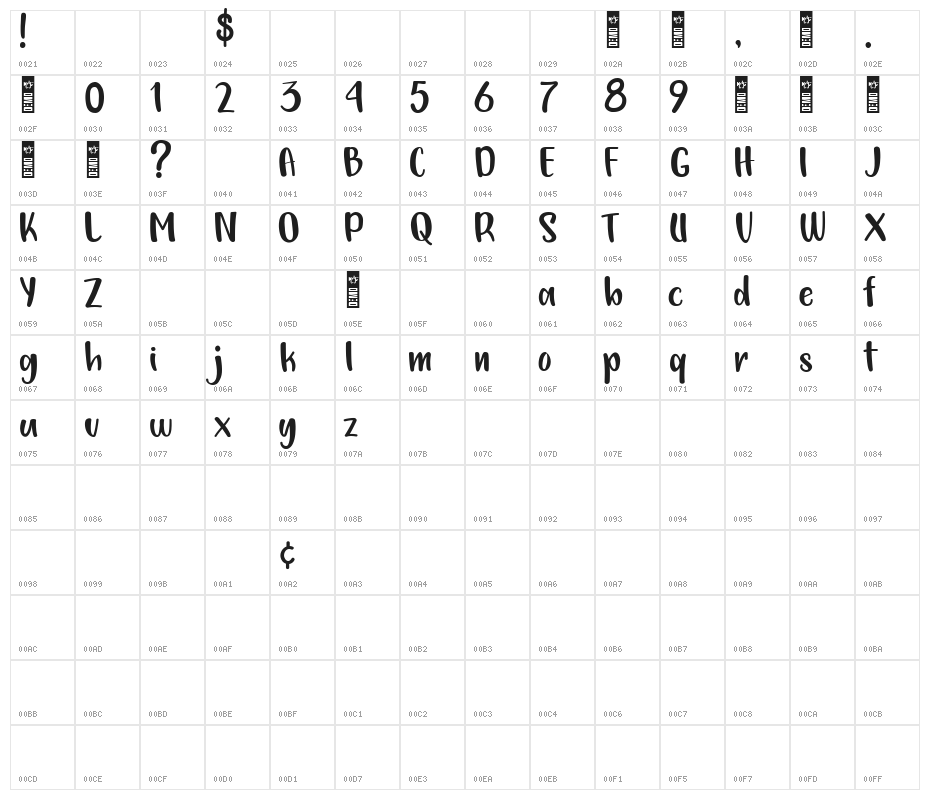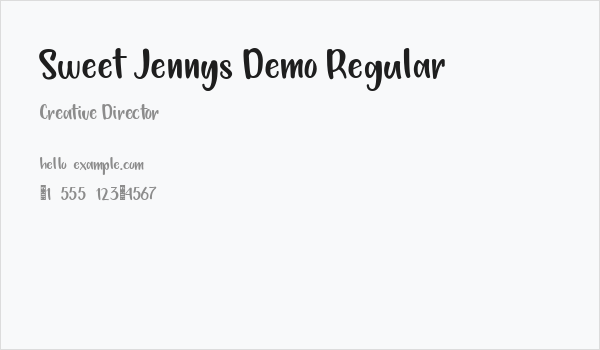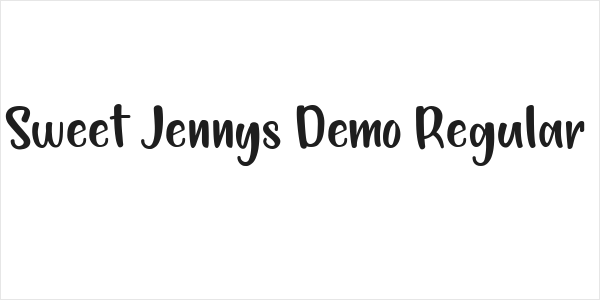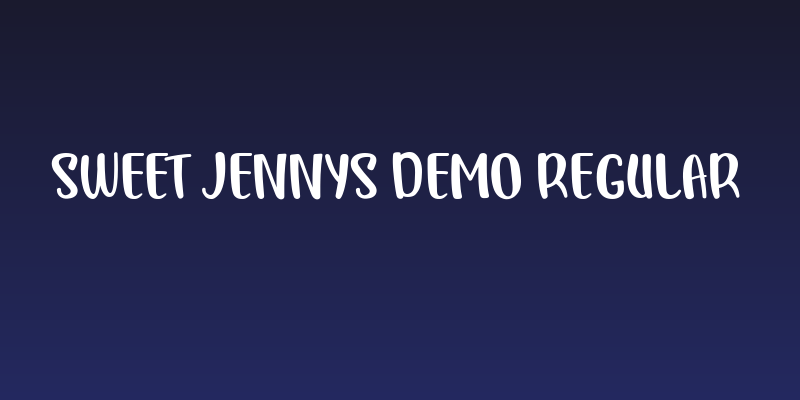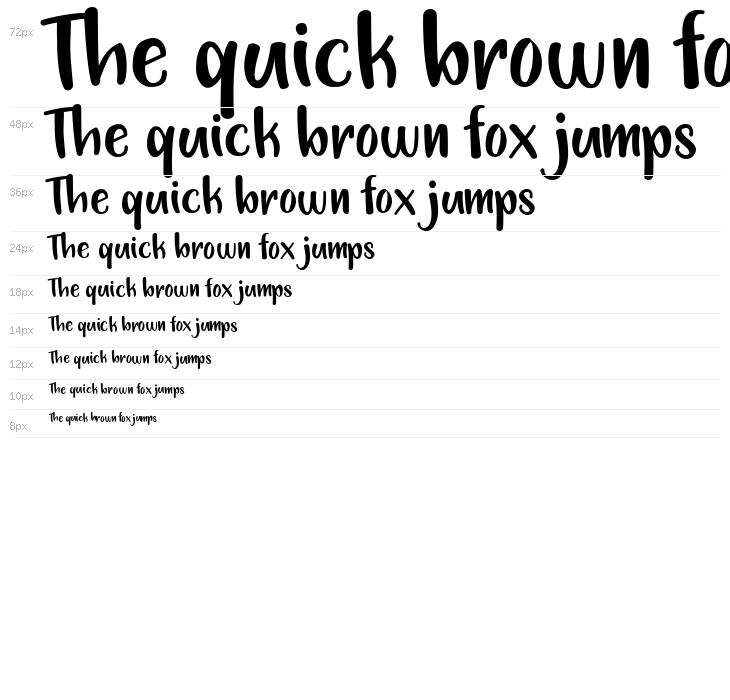
Sweet Jennys Demo Regular Font
Sweet Jennys Demo Regular Description
This font features a playful and casual handwritten style, characterized by its smooth, flowing curves and slightly irregular strokes. The uppercase letters are bold and rounded, giving a friendly and approachable feel. The lowercase letters maintain a consistent style with a slight slant, adding to the informal aesthetic. The numerals are well-balanced, matching the overall playful tone. Special characters are included, maintaining the same whimsical style. This font is perfect for projects that require a personal touch, such as greeting cards, invitations, or playful branding.
| Proposed Projects | Ideal for greeting cards, invitations, playful branding, and personal projects. |